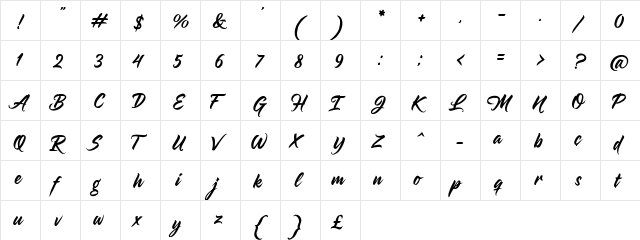
Hangover Brush Demo Regular
Design Context for Hangover Brush Demo Typeface
Hangover Brush Demo flows with the natural rhythm of handwritten lettering, making it ideal for designs that call for warmth and personal expression.
Font Pairing: Combine Hangover Brush Demo with a simple geometric sans for maximum contrast — the tension between flowing curves and clean structure is a classic typographic pairing.
Pro Tip: Pair Hangover Brush Demo with a clean sans-serif for supporting text. The contrast between fluid script and geometric structure creates an elegant typographic hierarchy.